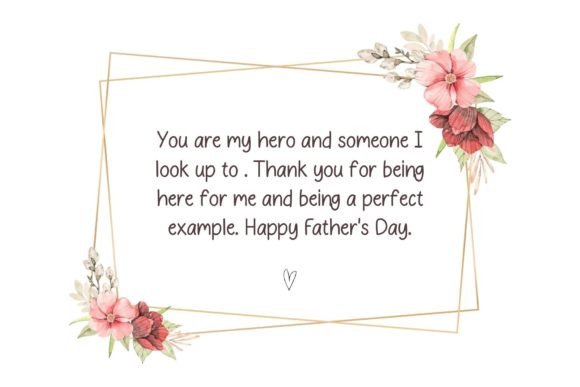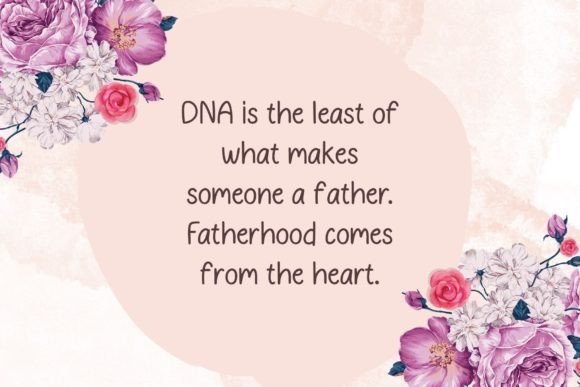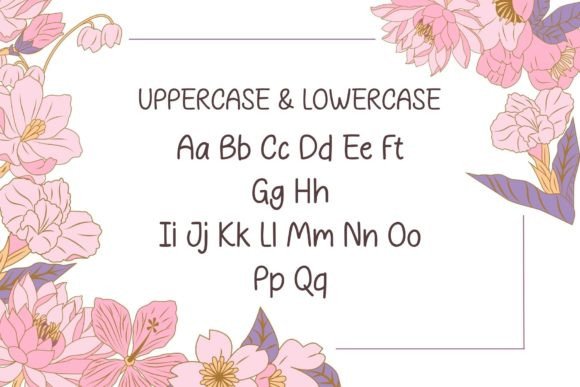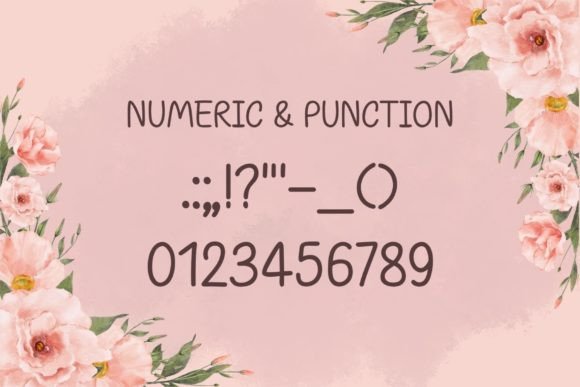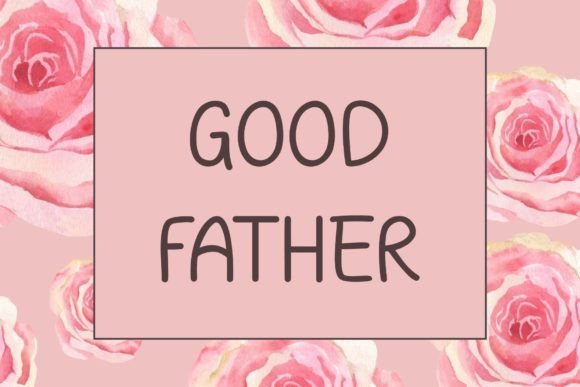
Celebrate the Heroes in Your Life with Good Father Font
As you sit down to create a heartfelt message for your dad, you can’t help but feel a surge of creativity. You envision a beautifully designed card or poster that will make him feel loved and appreciated. And that’s where Good Father Font comes in – a typography gem that will add a touch of warmth and gratitude to any project.
With its bold, confident lines and classic design, Good Father Font is the perfect choice for expressing your love and thanks. Whether it’s for Father’s Day or just to show your appreciation, this font will make your message stand out. As a designer, you’ll appreciate the versatility of Good Father Font, which can be used in a wide range of projects, from greeting cards to social media posts.
Key Features of Good Father Font
- Font Size and Style: The font comes in a single font size, with various styles including Regular, Bold, Italic, and Bold Italic.
- Unique Characteristics: The Good Father Font features a unique, modern design with clean lines and a friendly feel, making it perfect for use in various applications such as signage, advertising, and publishing.
- Language Support: The font supports a wide range of languages, including Latin-based languages, Cyrillic, and Greek.
Designer Review: Good Father Font
As a designer, I’m always on the lookout for unique and versatile fonts to add some personality to my projects. The Good Father Font caught my attention with its playful and modern feel. Here’s my honest review.
- Highly legible: The font is well-designed for both body text and headings, making it easy to read even in small sizes.
- Unique feel: The Good Father Font has a distinctive style that’s both modern and vintage at the same time.
- Neutral background: The font’s design doesn’t overpower the content, making it perfect for a wide range of applications.
- Limited expressiveness: While the font is unique, it may not be the best choice for conveying strong emotions or complex ideas.
- Not suitable for formal documents: The Good Father Font’s casual feel may not be suitable for formal documents, such as academic papers or business reports.
Overall, the Good Father Font is a solid choice for designers looking for a modern and playful font. While it may not be perfect for every project, its versatility and legibility make it a great addition to any designer’s toolkit.
Tips for Getting the Most Out of the Good Father Font
For optimal results, use the Good Father Font in bold or italic styles to emphasize key messages or add visual interest to your design.
Experiment with different font sizes to create a visually appealing hierarchy of information.
The Good Father Font is ideal for:
Designing inspirational quotes, sayings, or phrases.
Creating custom invitations, cards, or posters.
Developing branding materials, such as logos or business cards.
Alternatives to Good Father Font
Playfair Display is a luxurious serif font that can be used for high-end branding, luxury goods, and elegant packaging designs. It features intricate details and ornate flourishes that evoke a sense of sophistication and refinement.
Compared to Good Father Font, Playfair Display is more ornate and luxurious, making it better suited for high-end branding and luxury goods. It lacks the rough, textured feel of Good Father Font, but makes up for it with its elegant and refined aesthetic.
Rockwell is a classic serif font that can be used for corporate branding, signage, and publishing designs. It features a sturdy and solid feel that conveys a sense of reliability and professionalism.